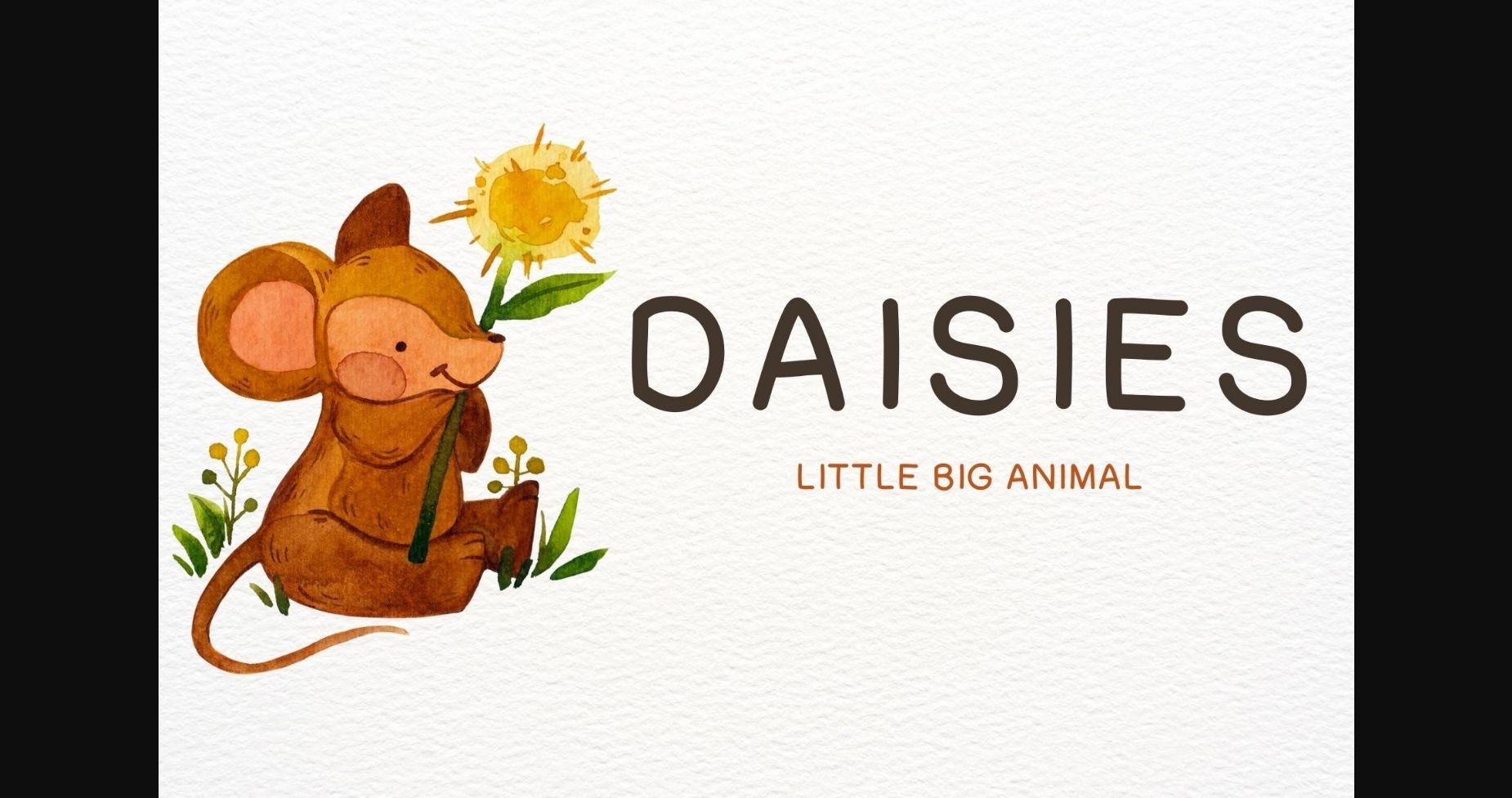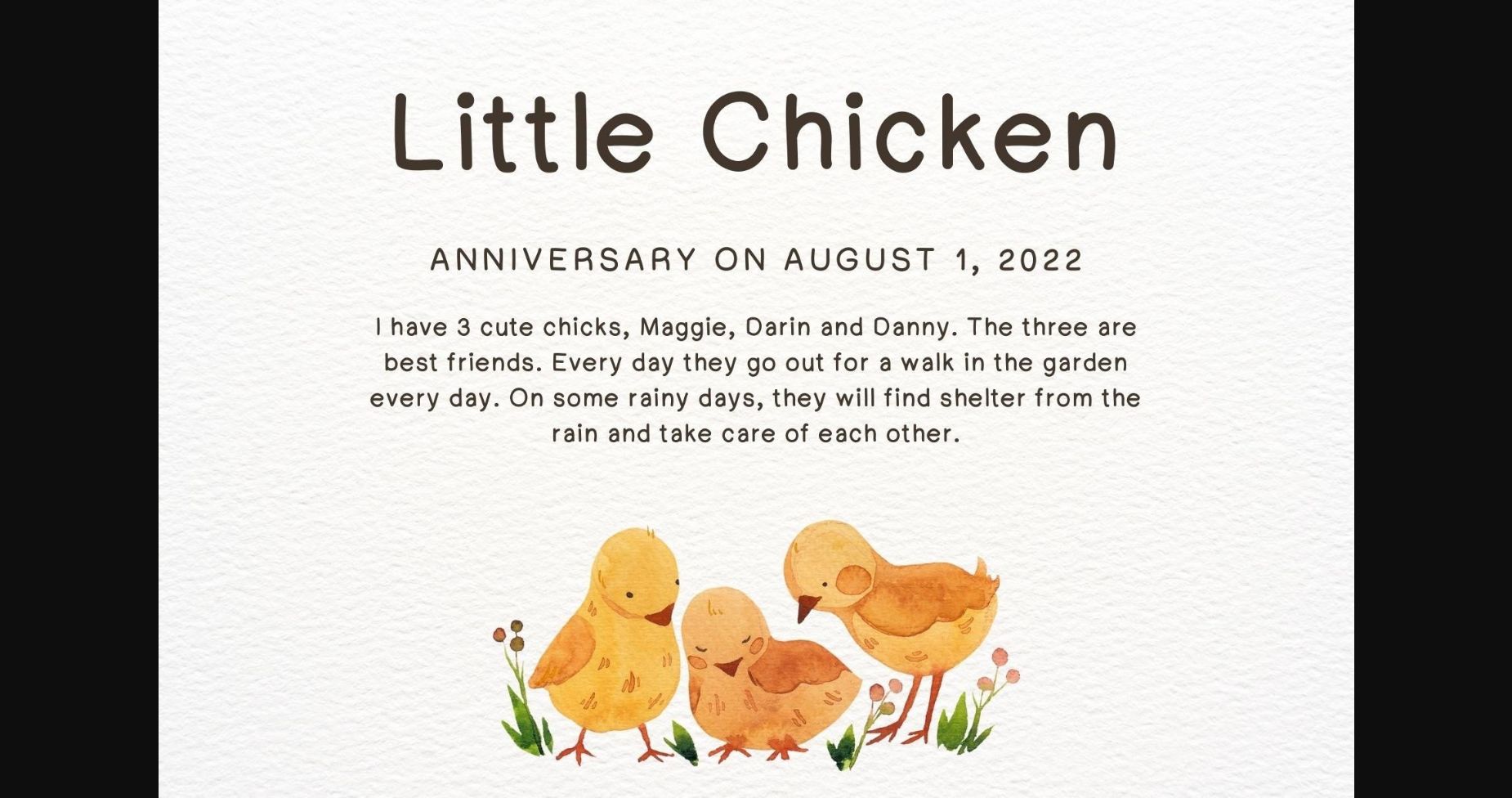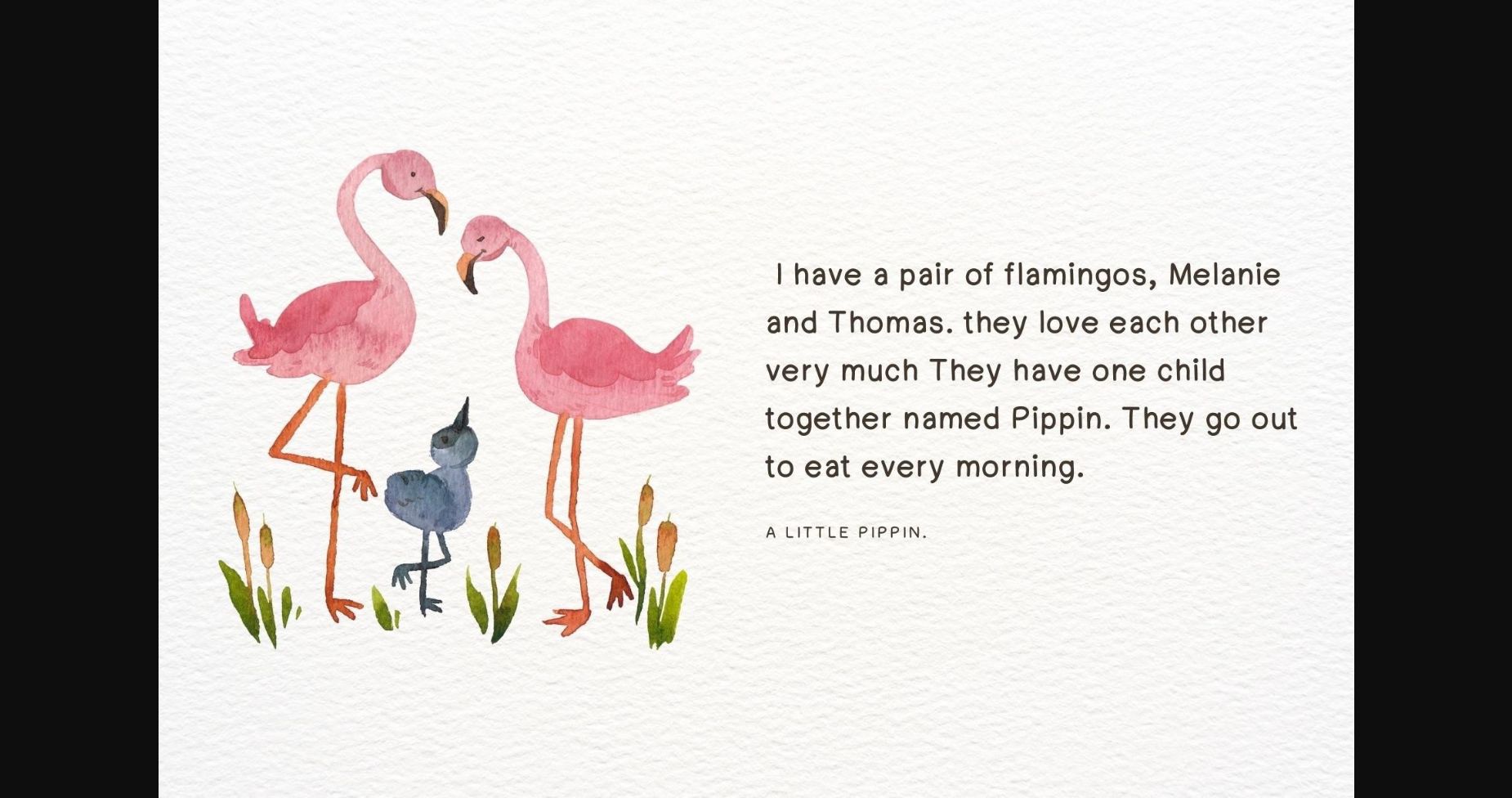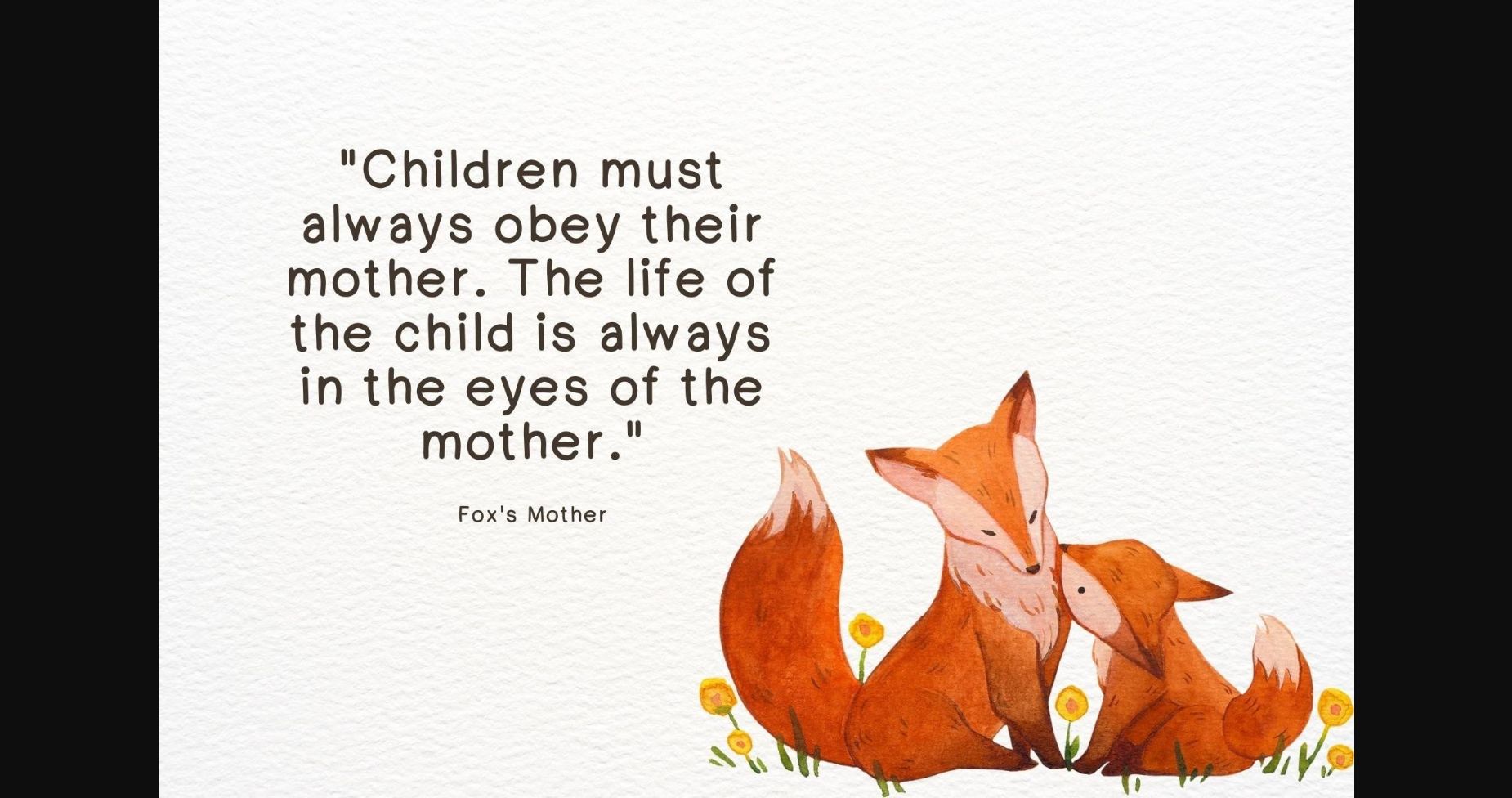
About Daisies Font
Daisies is a sans serif font that presents simplicity and fun. This will make your designs simple but stylish. This font is perfect for minimalist theme designs, whether itβs black or colorful.
Add this lovely font as one of your creations. Make your work more fun with Daisies!